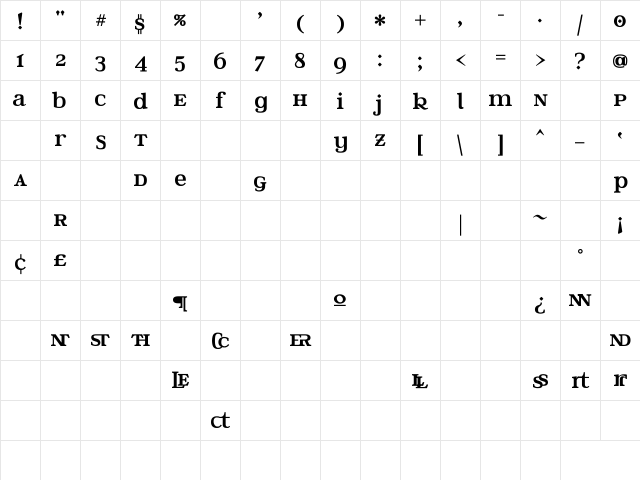
Water Street Detour Regular
| Foundry | Starving-4 Entertainment |
| Designer | Darren Rigby |
Design Context for Water Street Detour Typeface
Water Street Detour offers clean, dependable letterforms without strong stylistic allegiance, making it a practical choice for designers who need flexibility.